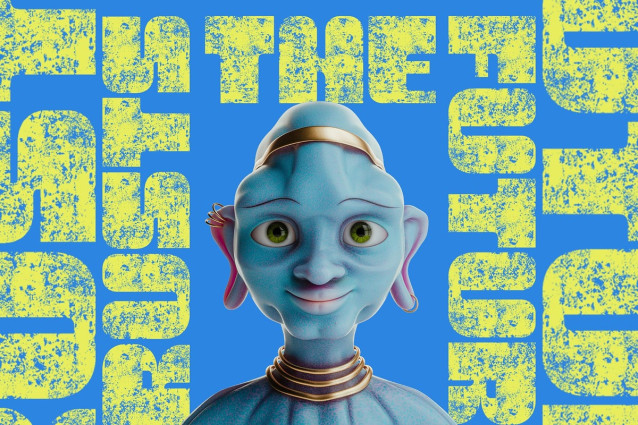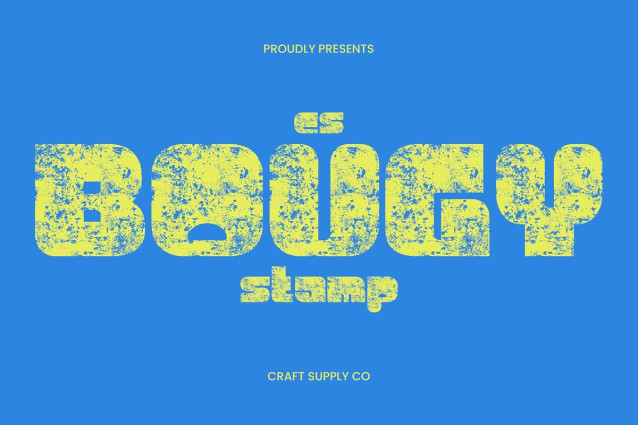
CS Bougy Stamp Font
CS Bougy Stamp Font: Funky Retro Energy Bold Sans Serif with a Playful Stamp Effect This font revives the spirit of the 90sera with its bold geometric forms and fun, carefree attitude. The stamped texture adds a raw, handmade edge that enhances its funky personality, making it both nostalgic and modern. Retro Shapes with a Modern Twist The geometric sans serif structure gives the font a strong foundation, while its playful proportions capture the vibrant, experimental mood of late 90s and early 2000s design. It feels both familiar and fresh, perfect for projects that aim to blend retro aesthetics with contemporary flair. Stamp Texture for Extra Character The unique stamp effect gives a tactile, imperfect quality that brings energy and authenticity to your designs. This adds visual interest and makes every application feel bold, expressive, and alive. Perfect for Posters, Logos, and vintage style Projects Whether you’re designing posters, logos, or vintage stamp visuals, This font delivers eye-catching style with a vintage edge. Its mix of playful geometry and nostalgic texture ensures your designs stand out with confidence and charm. Download Type Speciment: — What you get : – CS Bougy Stamp Regular – CS Bougy Stamp Italic Features : – Uppercase and lowercase characters – Numerals and Punctuation (OpenType Standard) – Accents (Supports Multilingual Characters) – PUA Encoding — You can use this typeface without needing any specialized software. — If you have any inquiries or need assistance, please feel free to contact us. We appreciate your support in enhancing your creative projects! Best regards, Craft Supply Co.